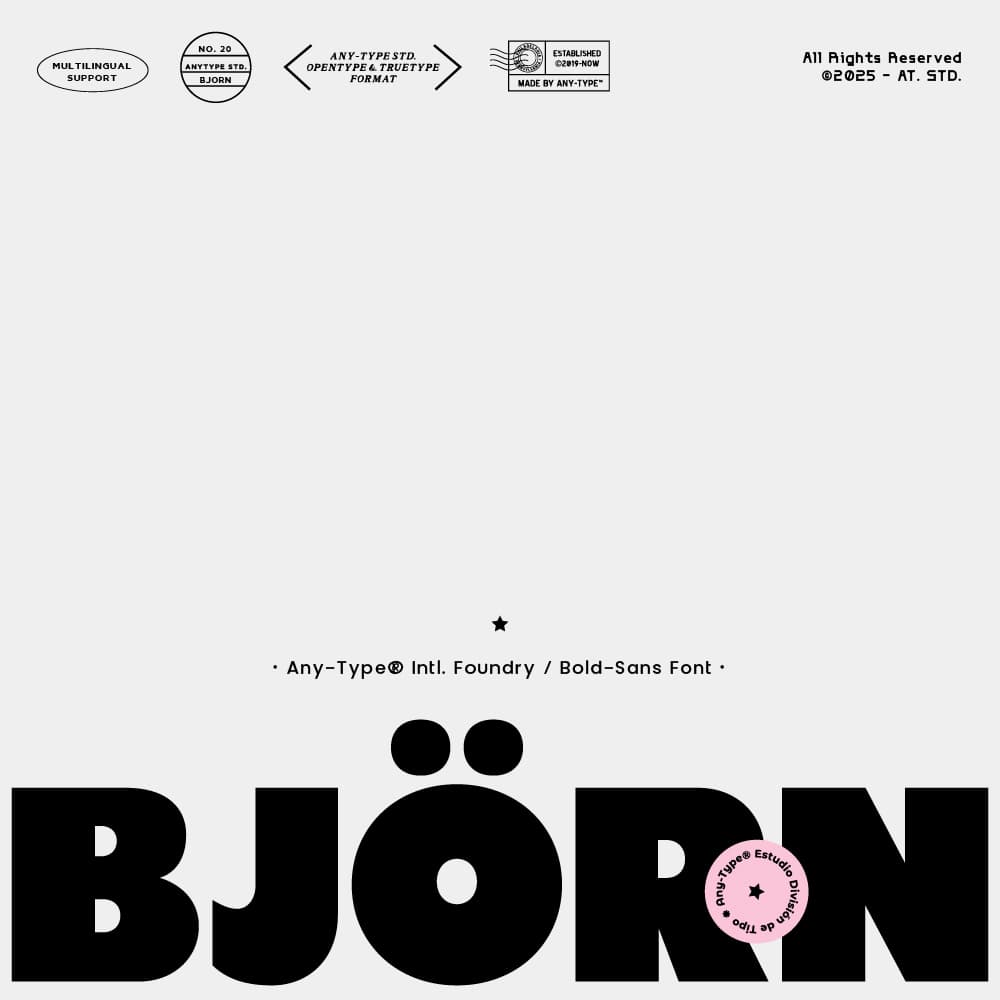
<h3>BJÖRN: Bold Sans Serif for Striking Statements</h3><p>Make an impact with BJÖRN, an audacious sans-serif typeface that embodies modernity and strength. Designed with an ultra-heavy weight and a precise geometric form, this font is ideal for commanding headlines, dynamic posters, distinctive logos, and progressive editorial layouts.</p><p> </p><p>BJÖRN seamlessly merges functionality with flair, accommodating multilingual projects with ease. Its minimalistic yet impactful design caters to professionals seeking a refined edge in their creative endeavors. This typeface is perfect for those crafting in sectors such as fashion, technology, music, or innovative branding, ensuring your vision is communicated with authority and style.</p><p> </p><p>Features:</p><ul><li><p>Bold, Sans-Serif Design</p></li><li><p>Ideal for Headlines, Posters, Logos, and Branding</p></li><li><p>Supports Multiple Languages</p></li><li><p>High Legibility with a Modern Touch</p></li></ul><p></p>